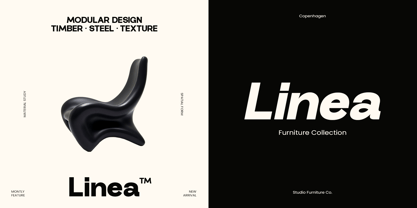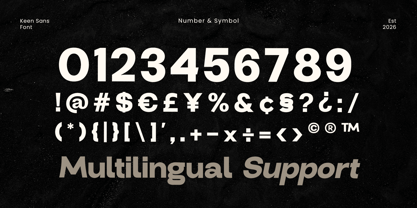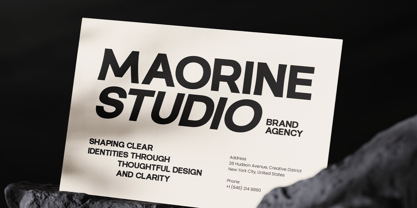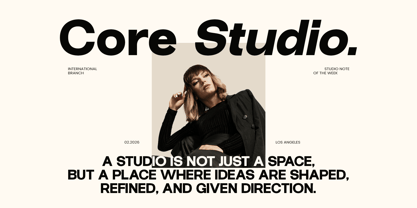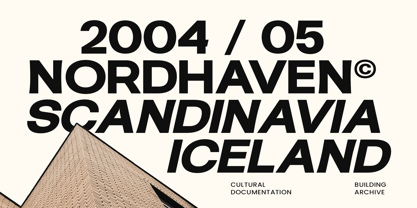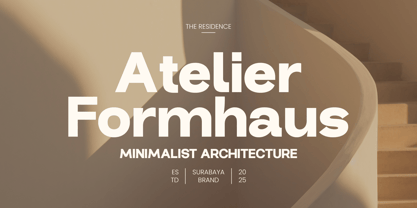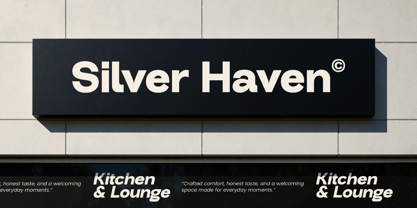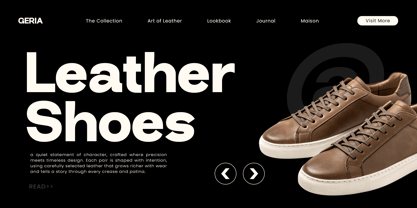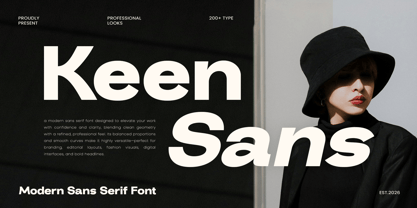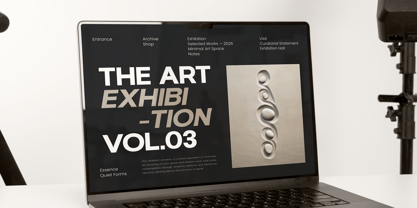
Keensans
by Vampstudio
The Keensans Font Family was designed by Irfan syah and published by Vampstudio. Keensans contains 2 styles and family package options. More about this family
Keensans is a clean, modern sans serif font inspired by contemporary Scandinavian design and architectural typography. With strong geometric shapes, balanced proportions, and excellent readability, Keensans is perfect for modern branding, editorial layouts, and minimalist visual identities. Designed to feel confident yet neutral, this typeface works beautifully in both large display headlines and smaller body text, making it a versatile choice for digital and print projects.